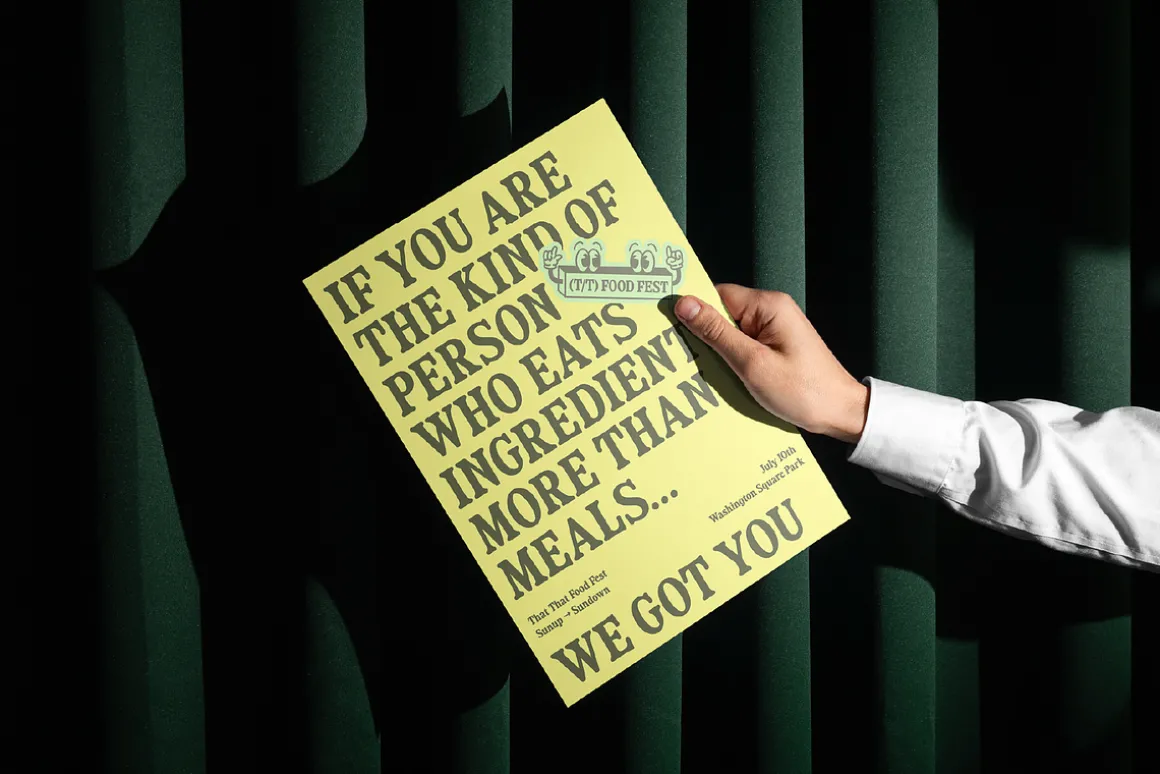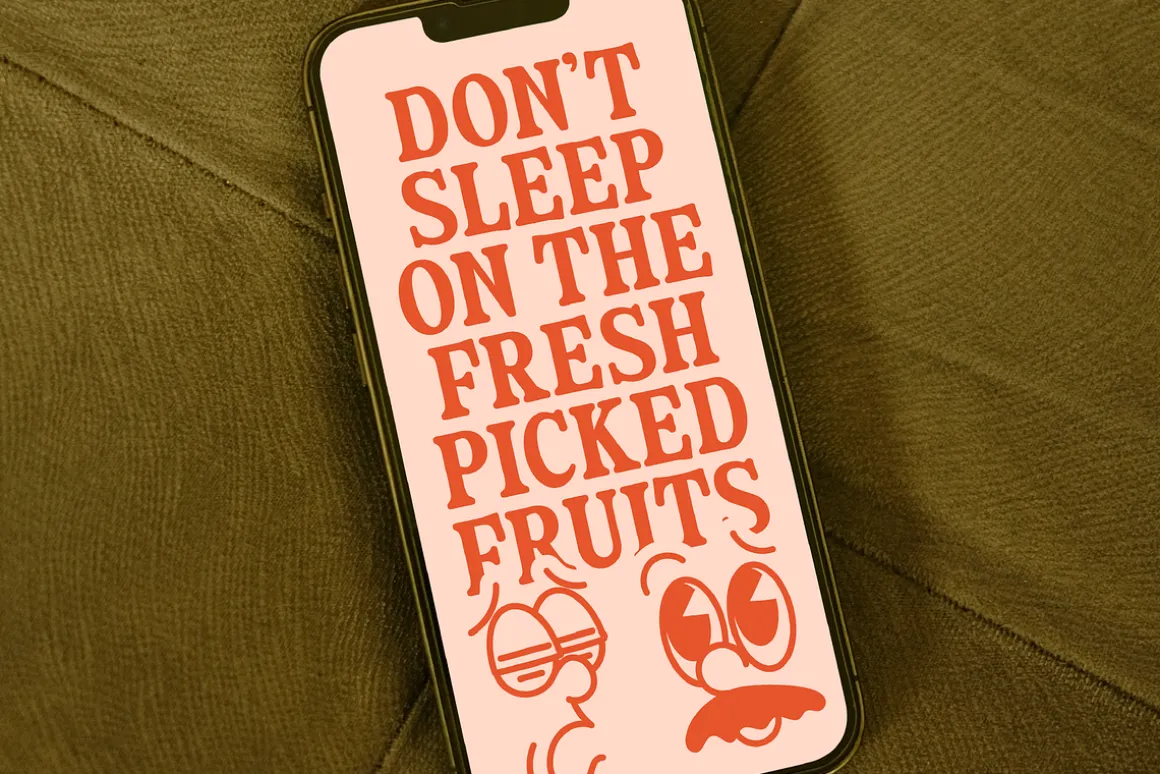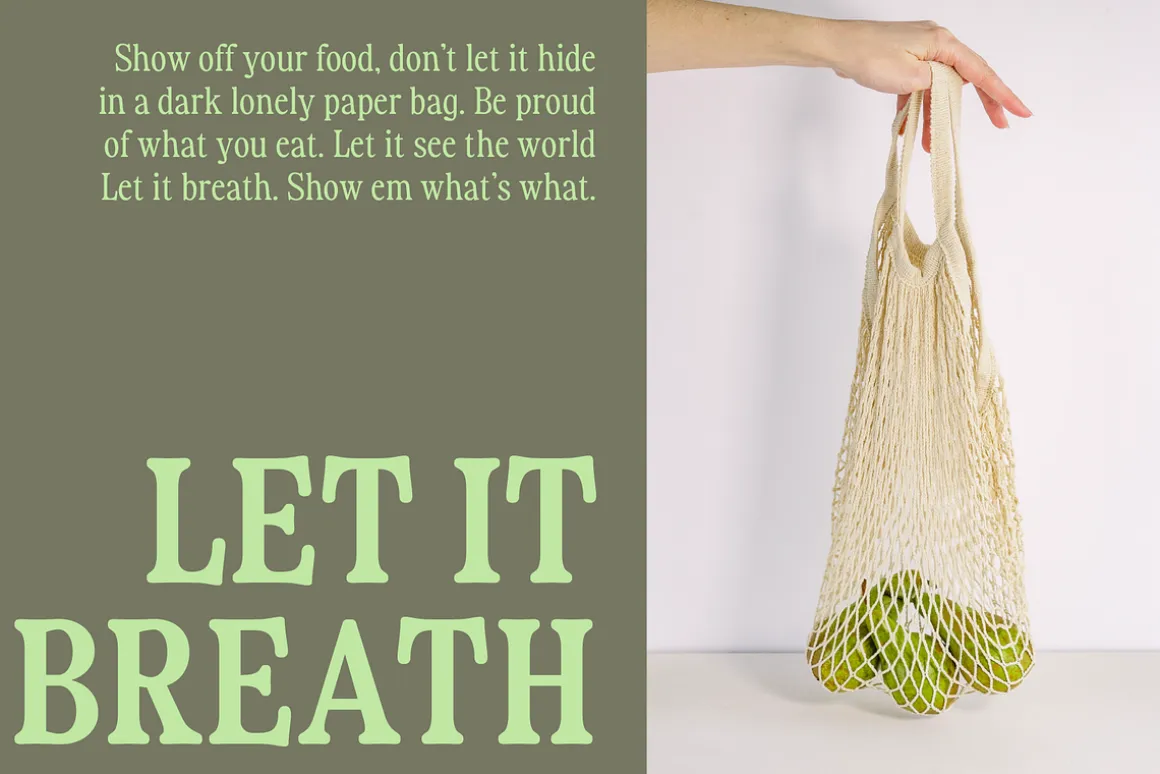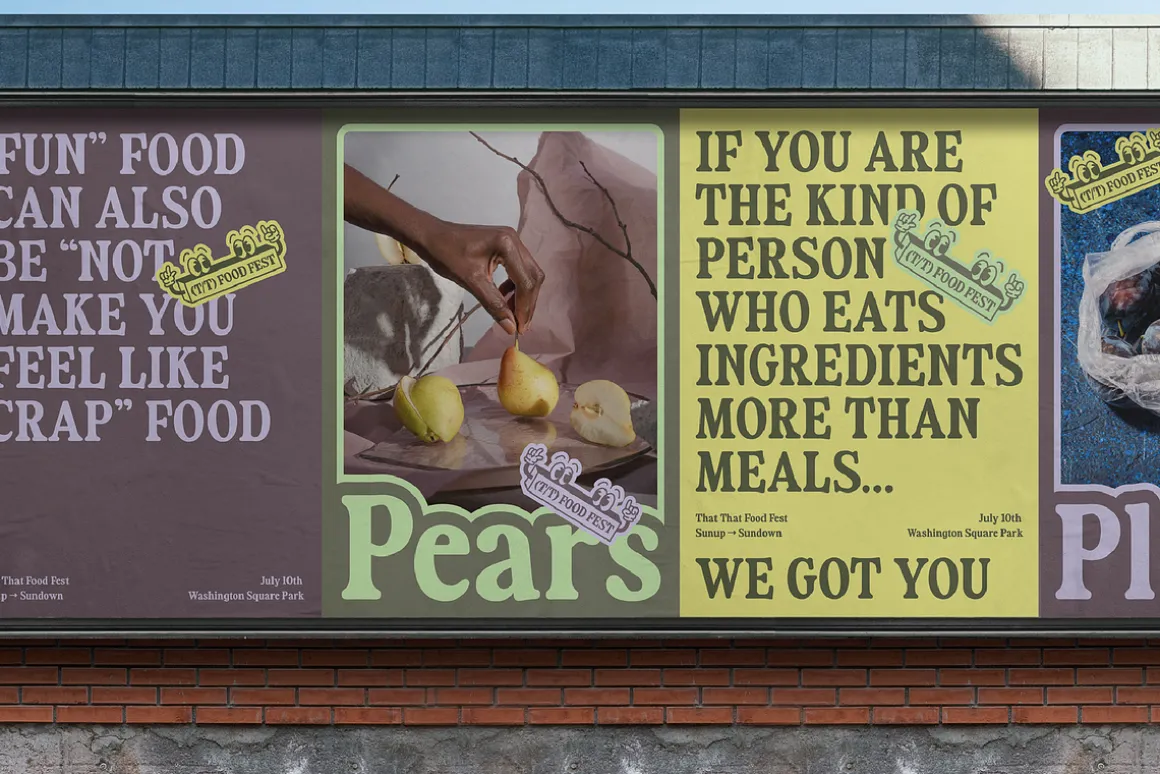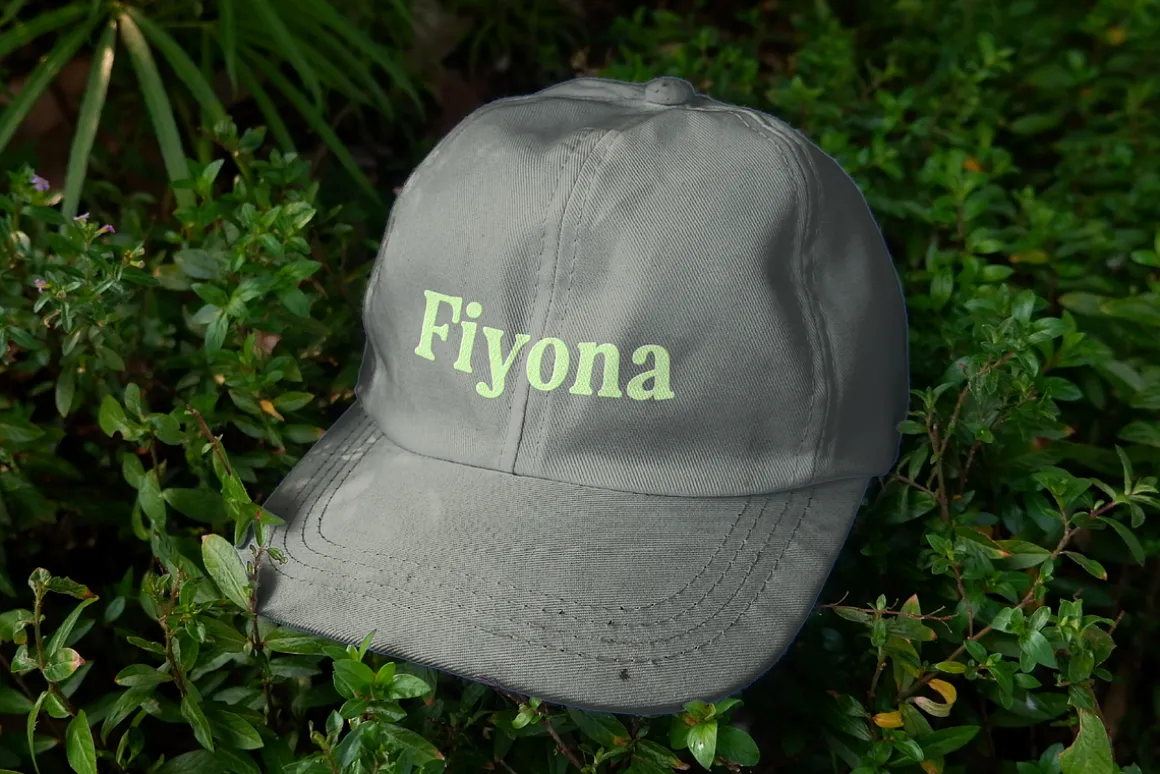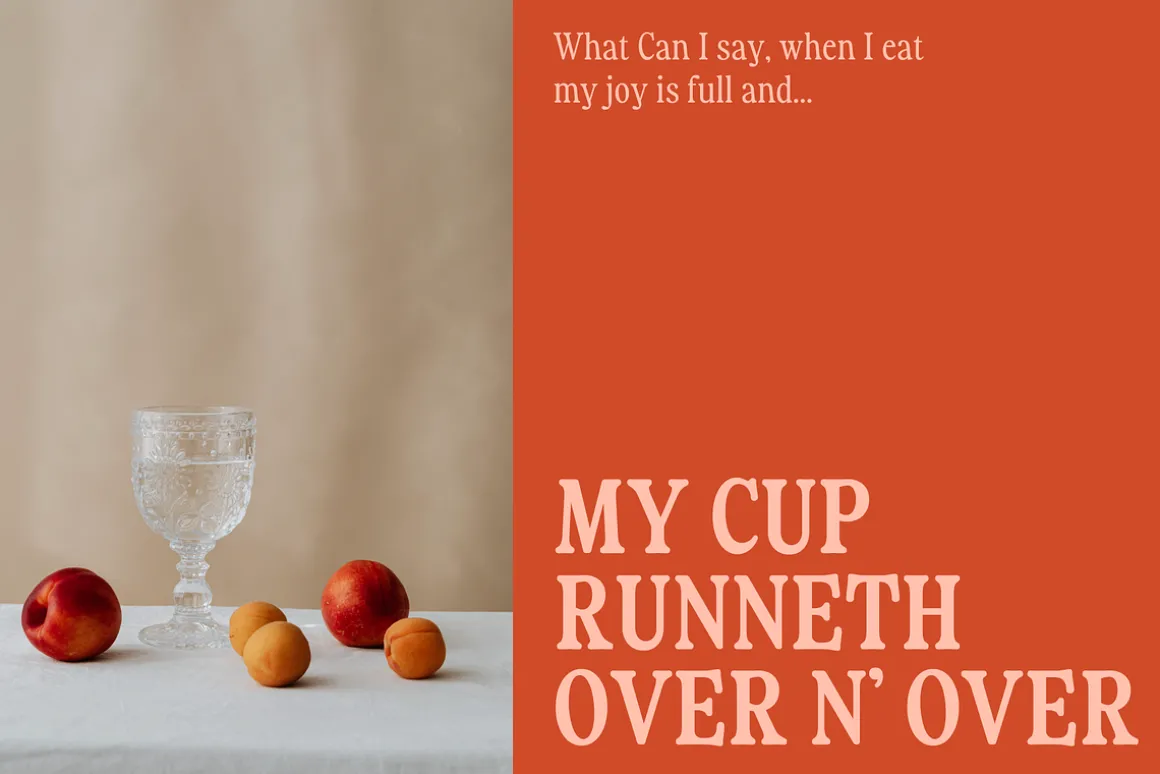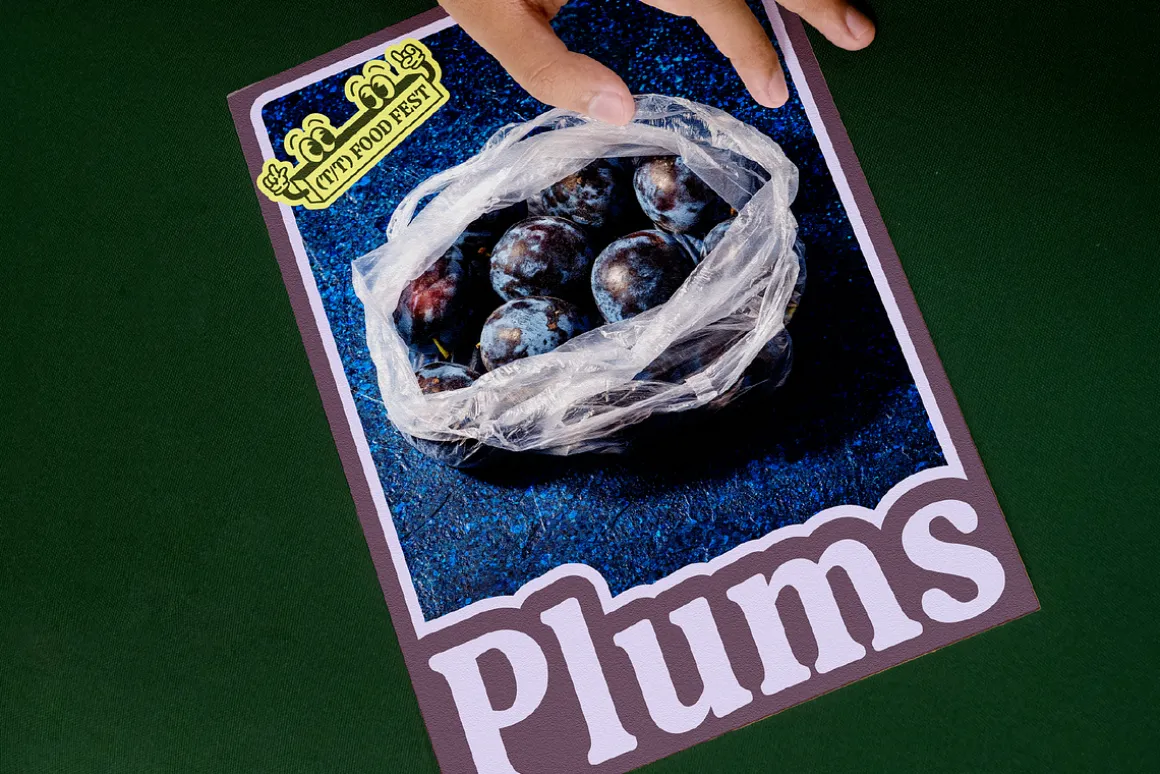
Fiyona is a retro variable soft serif is full of personality. It has a kicked out shoulder stem on characters like the “ahmn” Barbs on the “EFLT” Beaks on the “CGS” and of course the super fun revered descender “y”
The balance between soft curves and strong structure is the main the theme of the typeface. Round outside corners with sharp acute angles, a more serious look at thin weights with a more playful look in the heavy weights, and of course subtle yet unique design choices like the reverse descender of the lowercase “y”
- Small Caps
- Scientific/Fraction Numbers
- 4 Style Sets
- Case Sensitive Punctuation